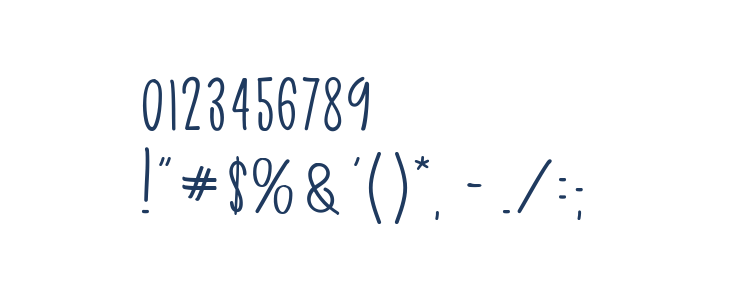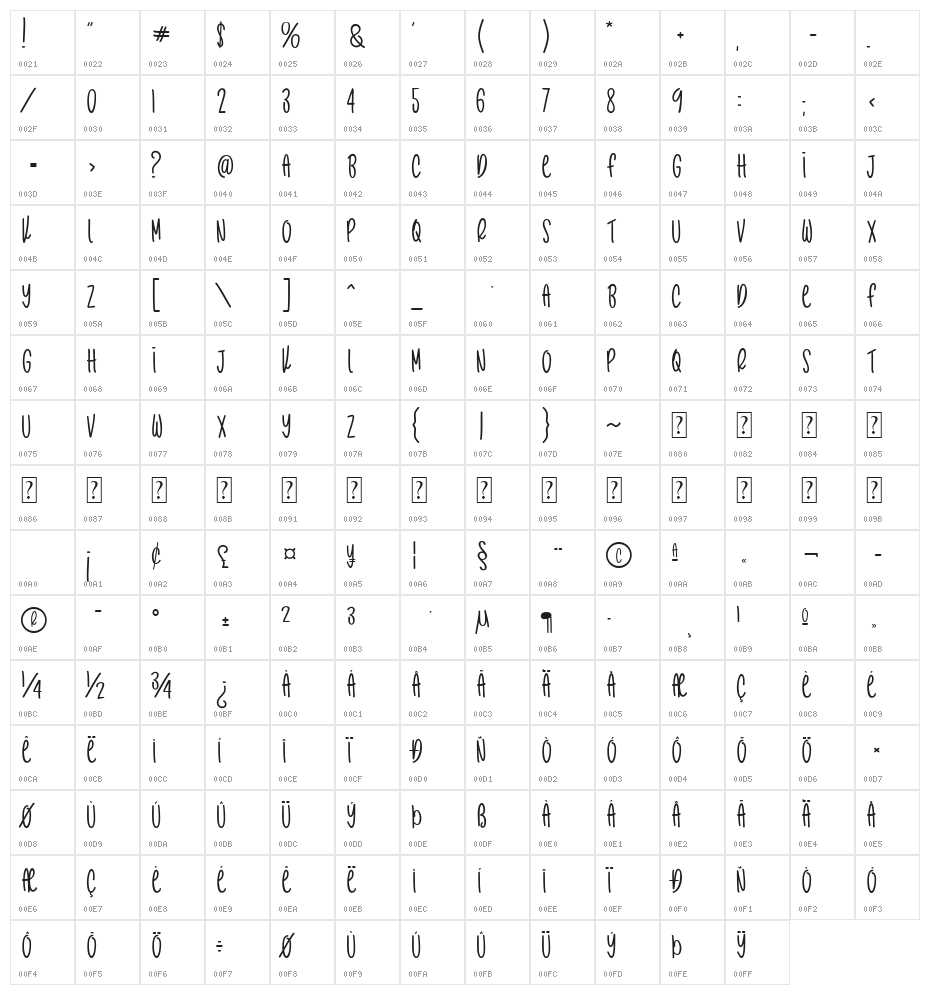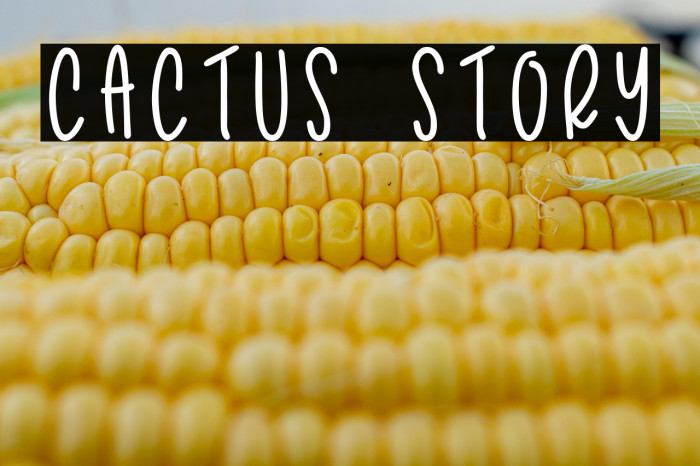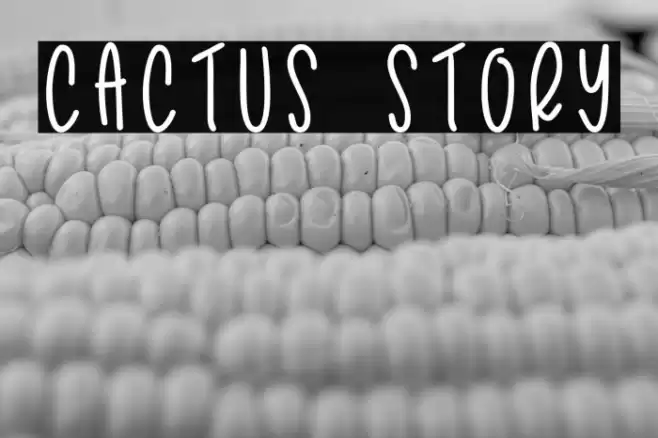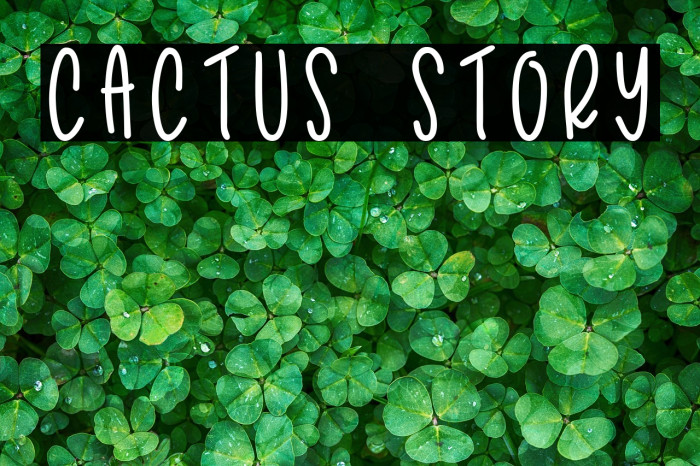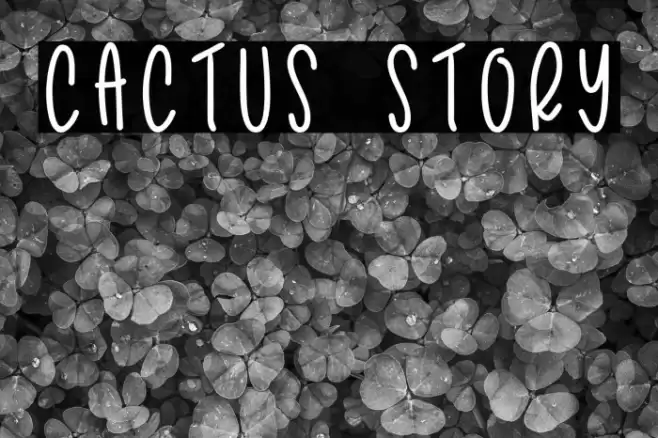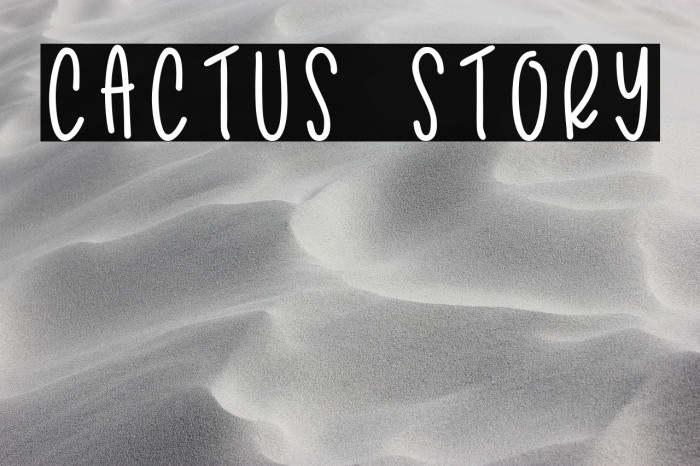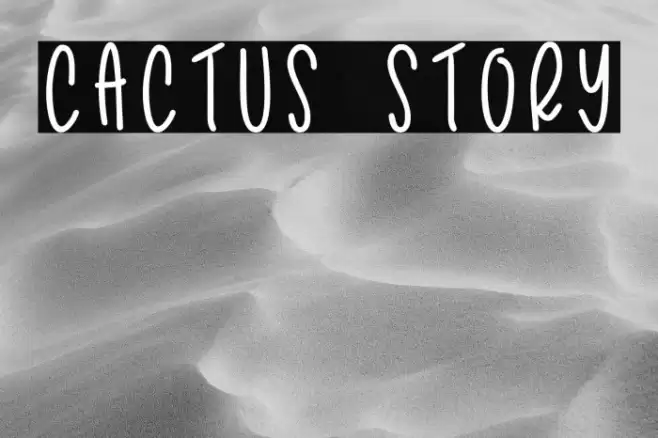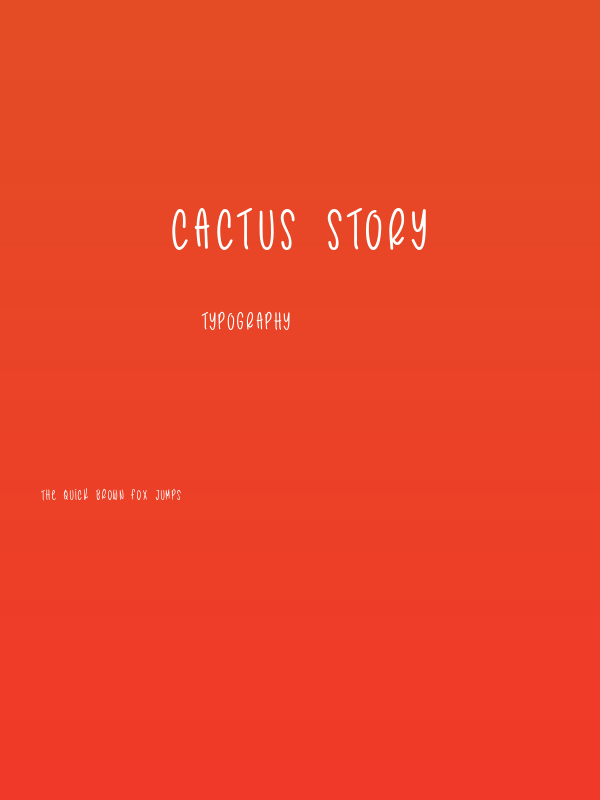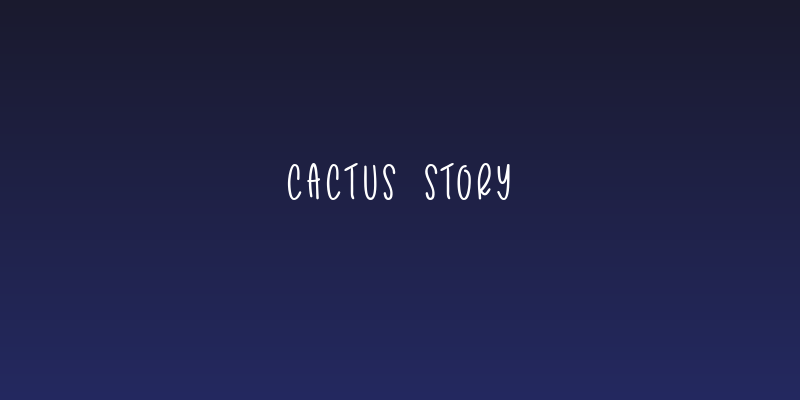
Cactus Story Font
Cactus Story Description
This playful and whimsical font features a handwritten style with a casual and friendly appearance. The letters are slightly slanted, giving it an informal and dynamic look. Each character is crafted with a smooth, flowing line that mimics the natural movement of handwriting. The uppercase and lowercase letters maintain a consistent style, with rounded edges and a slight variation in stroke thickness that adds to its charm. The numbers and special characters are designed to match the overall aesthetic, ensuring a cohesive look across all text elements. This font is ideal for projects that require a personal touch or a creative flair.
| Use Case | Headlines, Creative projects, Informal communications |
| Proposed Projects | Great for greeting cards, invitations, personal blogs, and creative branding. |